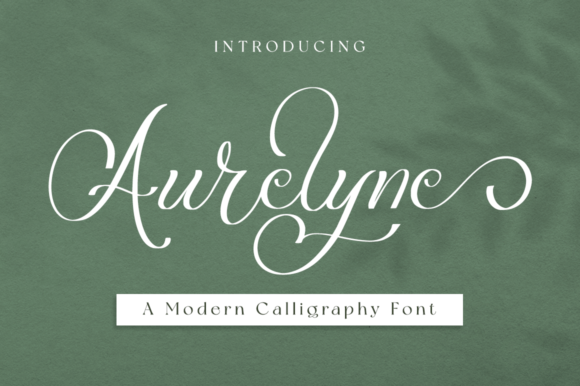
Introduction to Aurelyna Font
Aurelyna is an elegant handwritten font that feels equally charming and elegant.
It looks stunning on wedding invitations, thank you cards, quotes, greeting cards, logos, business cards, and every other design which needs a customized touch This font is PUA encoded, which means you can access all of the glyphs and swashes with ease.
Key Features of Aurelyna Font